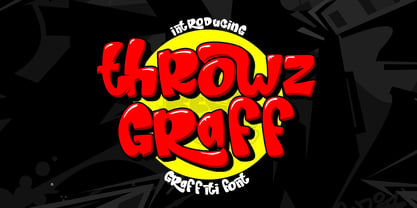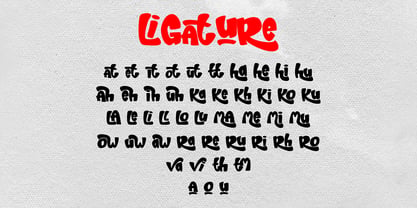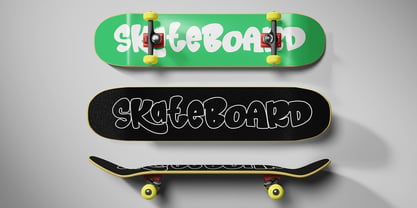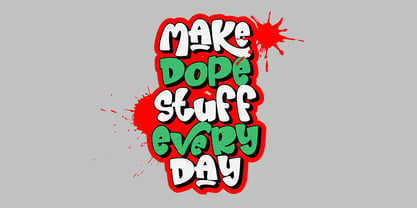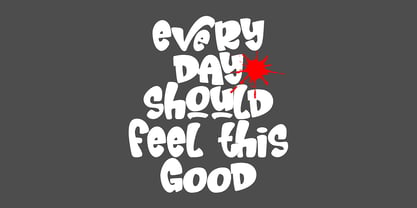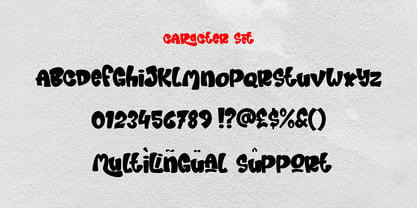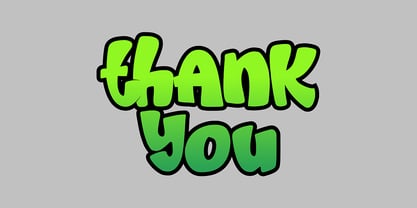
Throwz Graff
by Sipanji21
The Throwz Graff Font Family was designed by Sipanji and published by Sipanji21. Throwz Graff contains 1 styles. More about this family
Throwz Graff is a bold, rounded graffiti font inspired by classic throw-up street styles. With a soft, bubbly structure and a friendly urban vibe, this font is perfect for playful branding, kids' streetwear, sticker designs, hip hop content, YouTube thumbnails, and bold urban merchandise. It brings the energy of street tagging to your creative projects with clean, easy-to-read letterforms. Whether you're designing posters, album covers, or apparel graphics, Throwz Graff delivers fun personality with street-style authenticity.
Designers: Sipanji
Foundry: Sipanji21